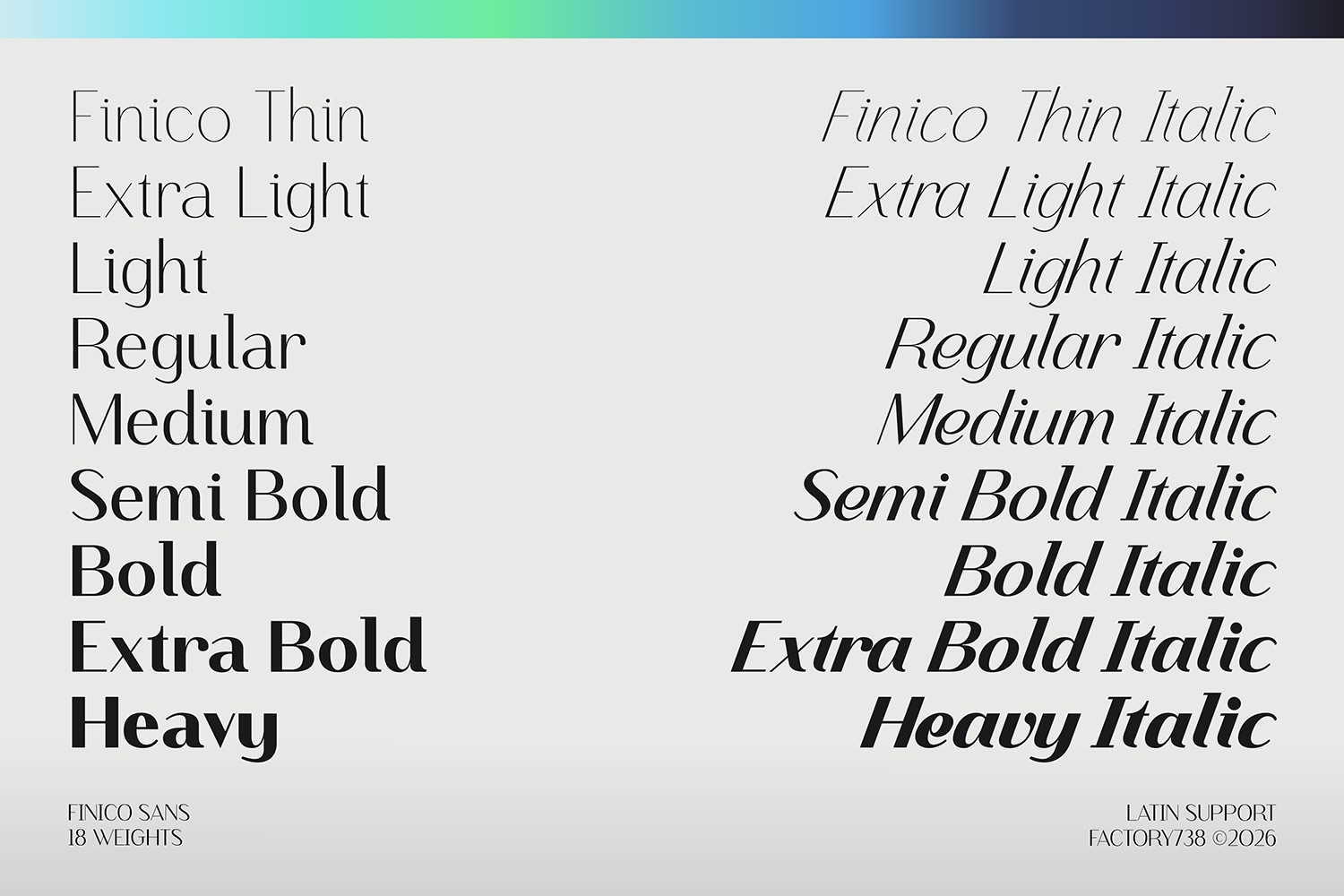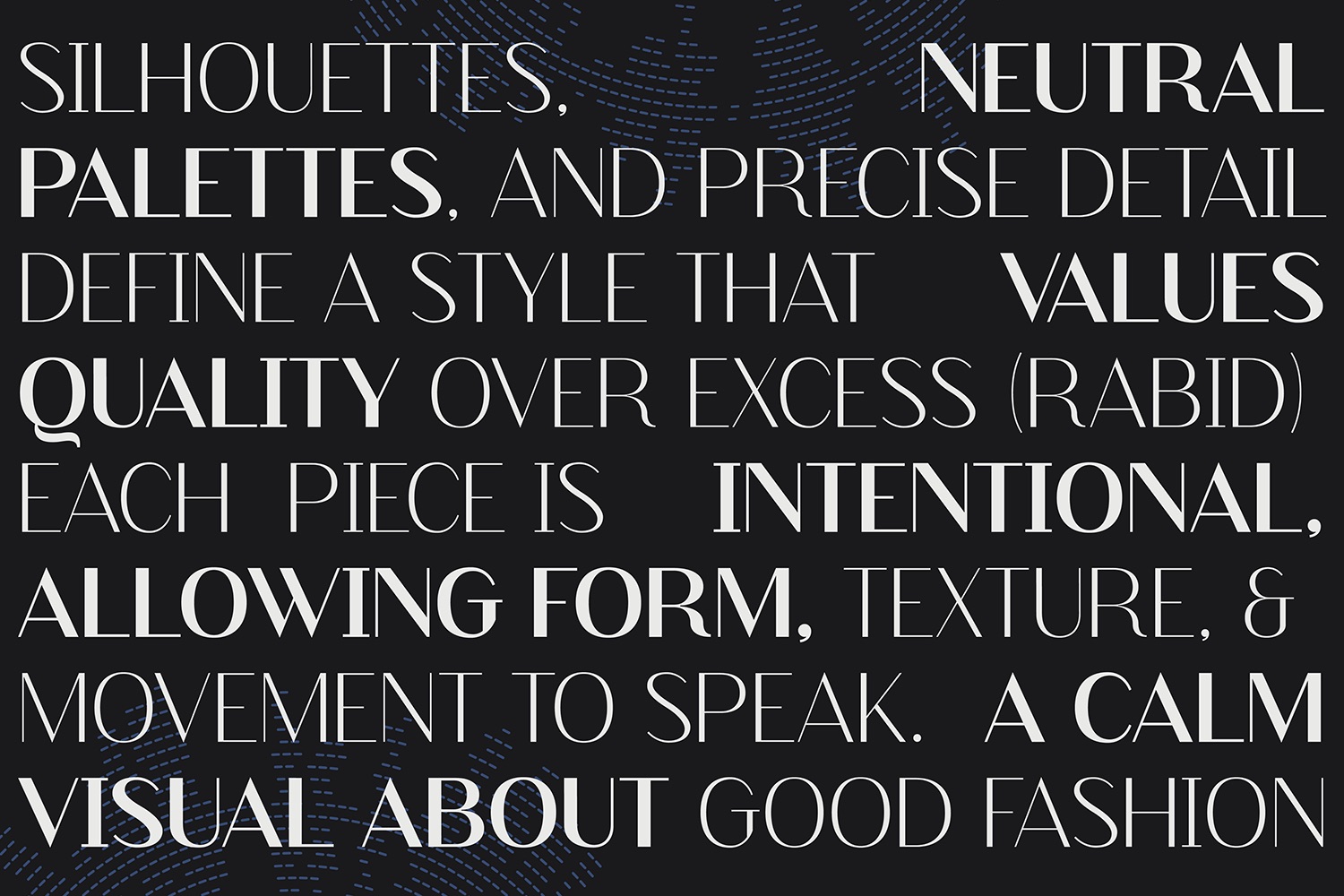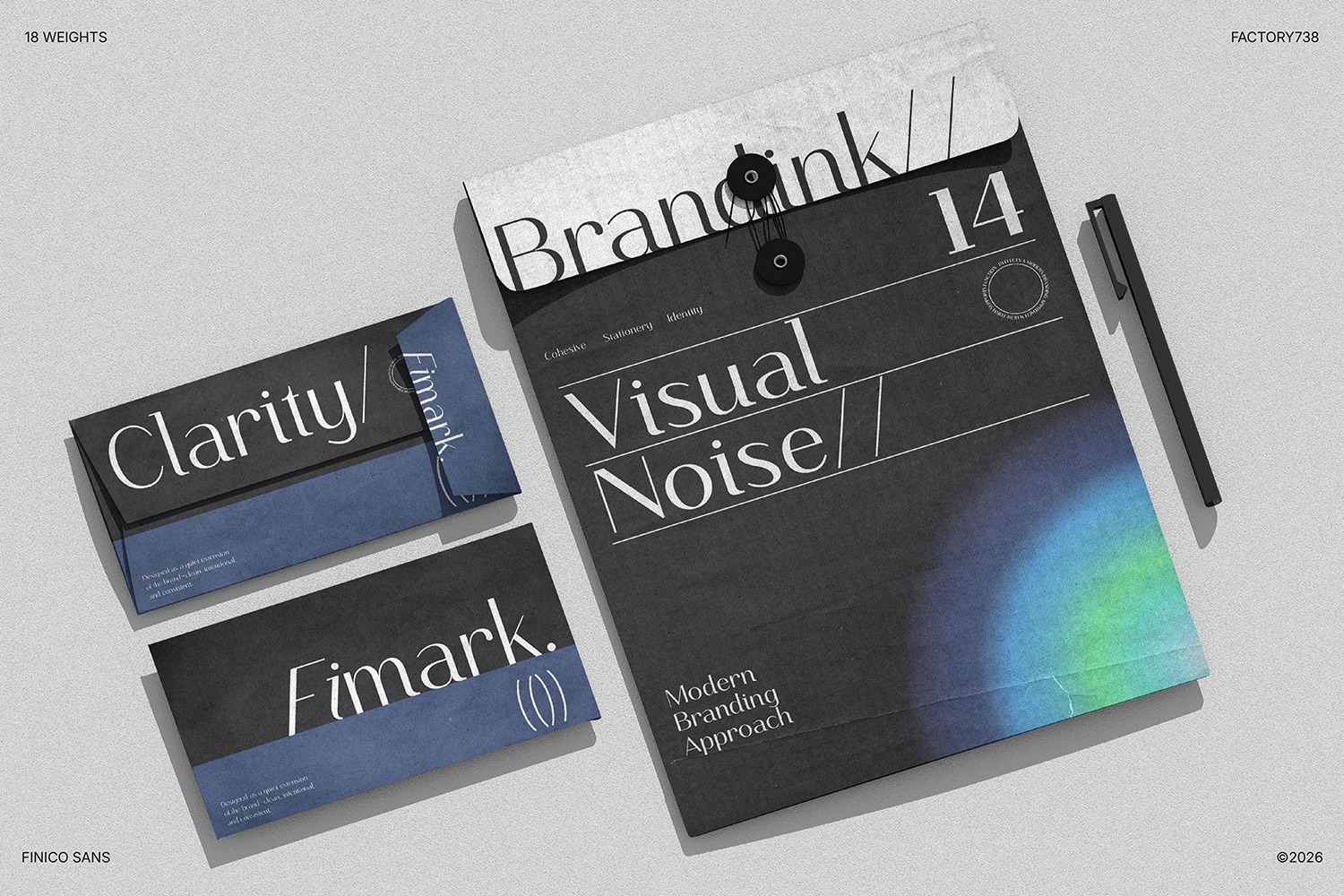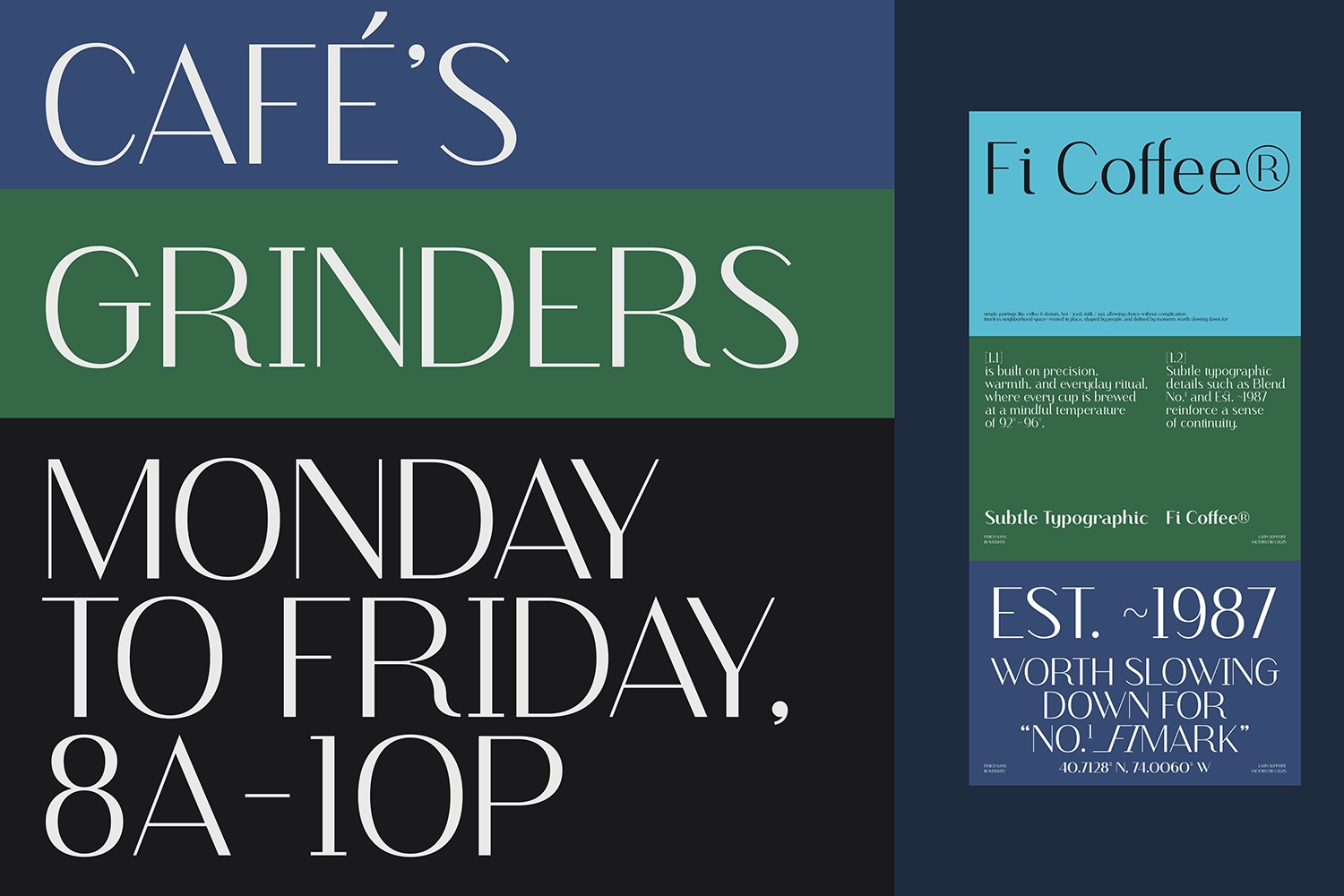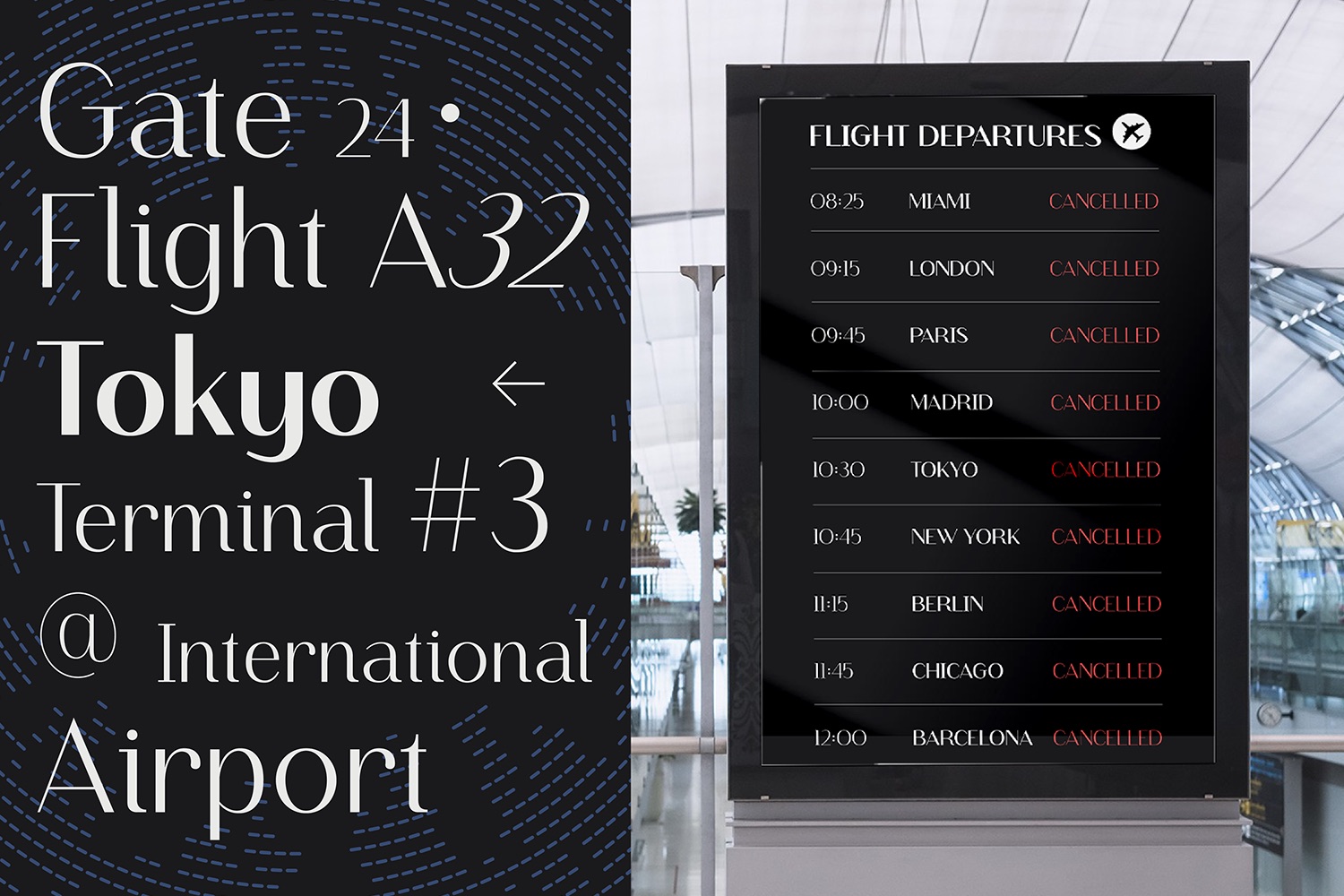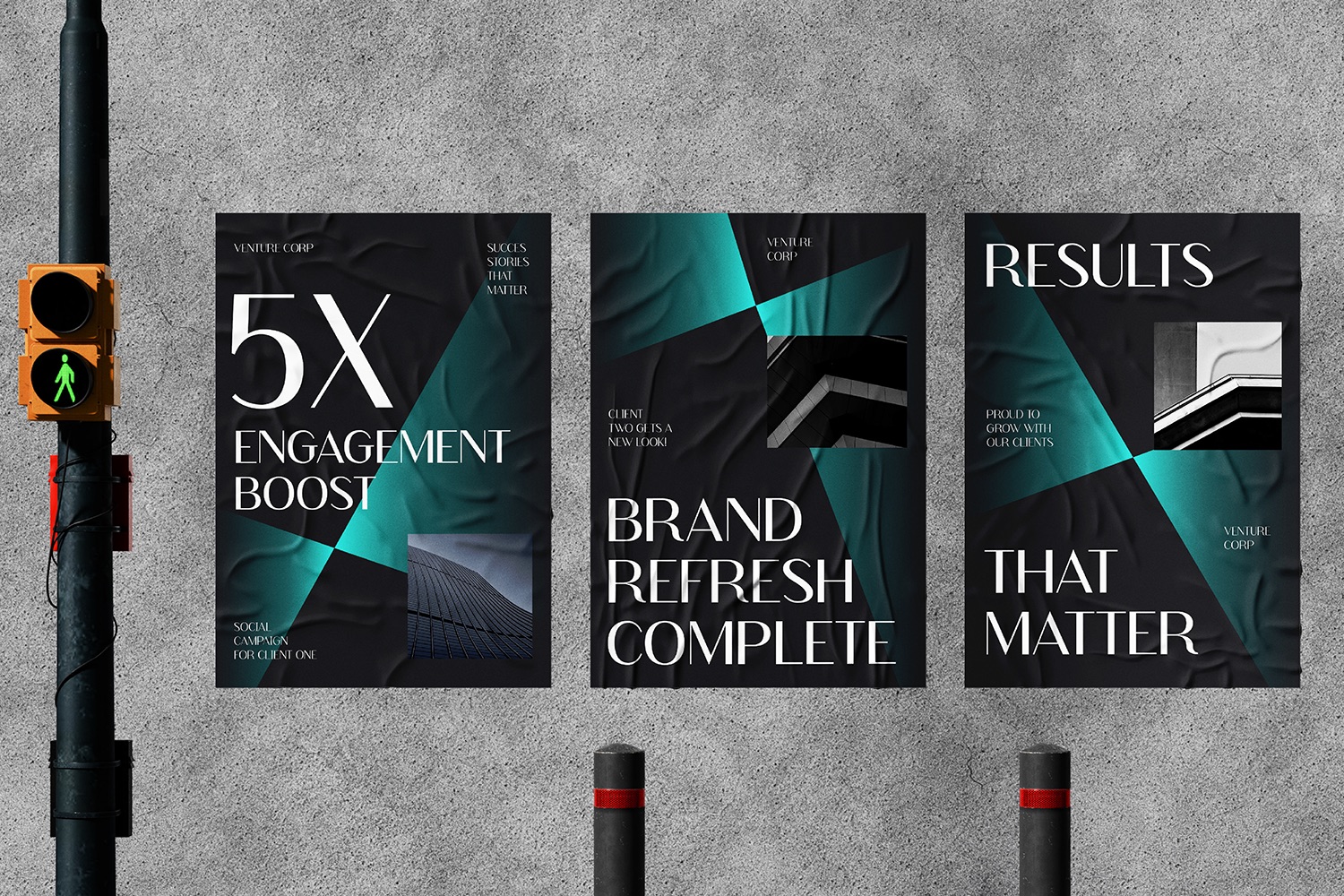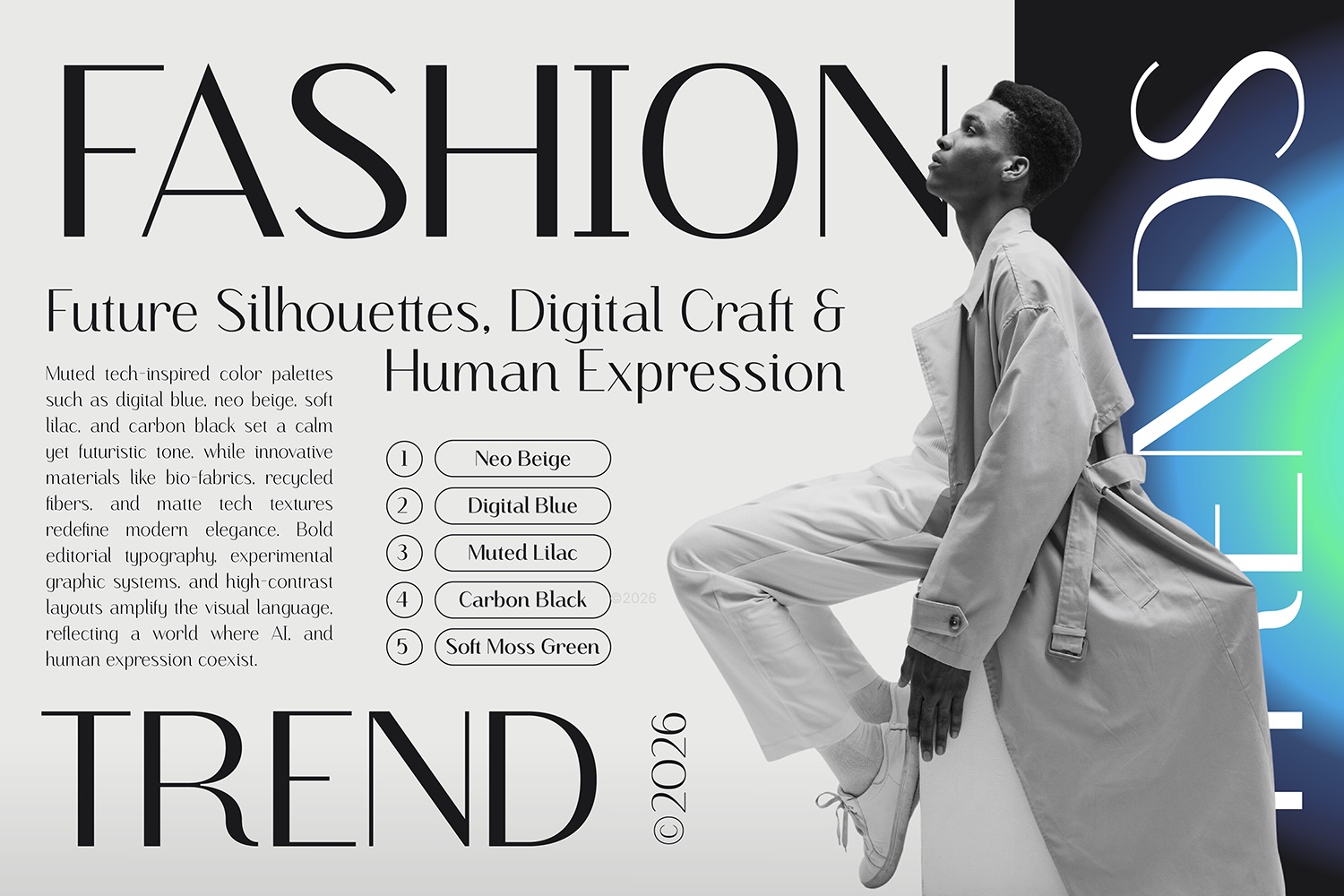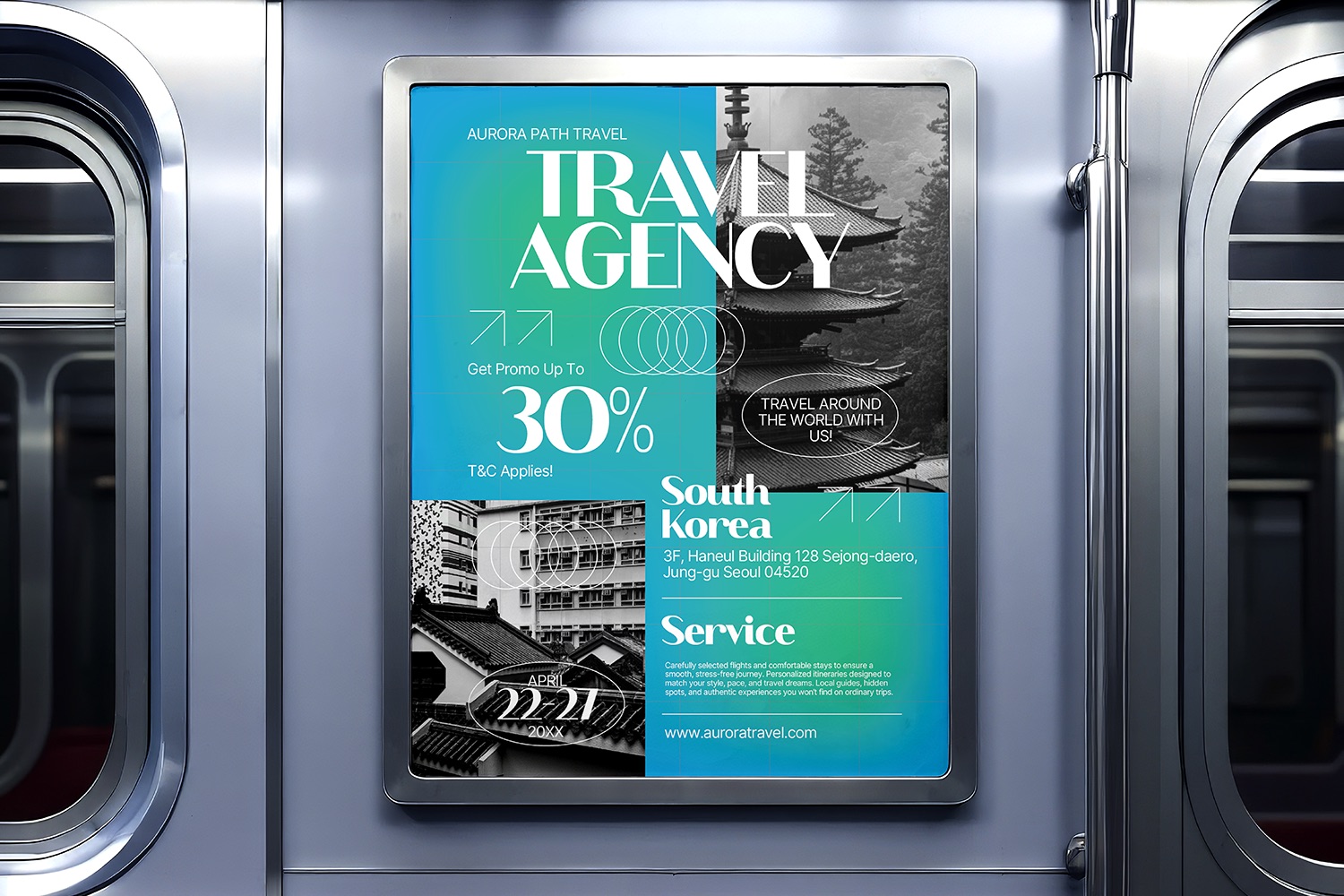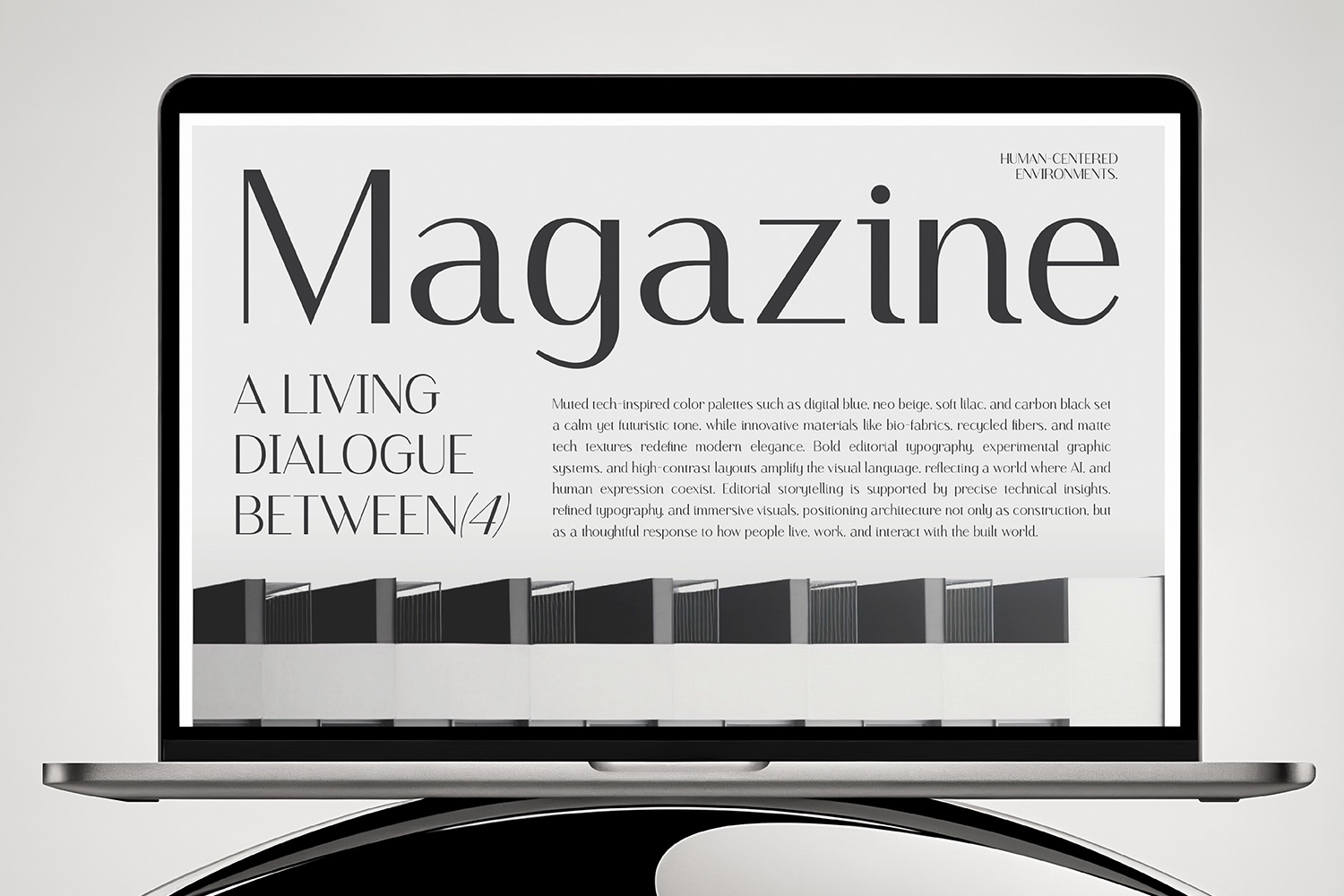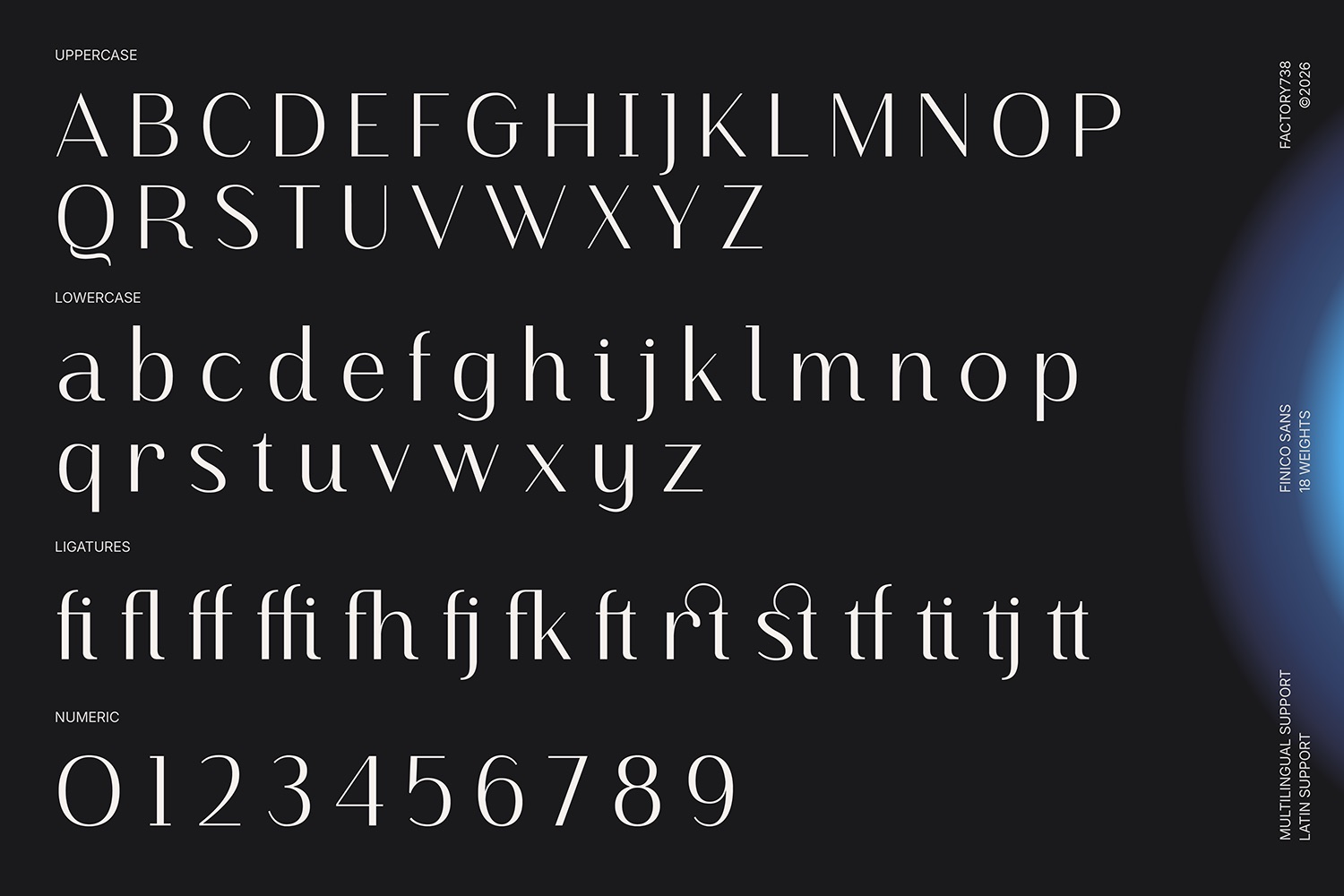
Finico Sans – A Thoughtful Digital Craft for Clear Communication
Meet Finico Sans, a thoughtful minimalist modern sans serif designed for the next generation of creative work. This typeface balances architectural precision with smooth, organic curves, offering a fresh digital presence that feels both innovative and timeless.
We crafted this versatile 18-style library to be a reliable instrument for creators. It provides the fluid motion and dynamic expression required for honest branding, artisan editorial design, and minimalist digital interfaces. We engineered it to help your message look polished and modern, while remaining easy to read.
FEATURES
- 18 Total Styles: A full spectrum of weights from ethereal Thin to commanding Heavy, with matching Oblique styles.
- Technical: Over 900+ glyphs, stylistic ligatures, and Variable Font technology included for optimized digital craft.
- Ideal for: Bold headlines, creative editorials, lifestyle branding, and high-performance websites.
- Global Support: Reliable and comprehensive support for worldwide accessibility, including Latin and Cyrillic sets.